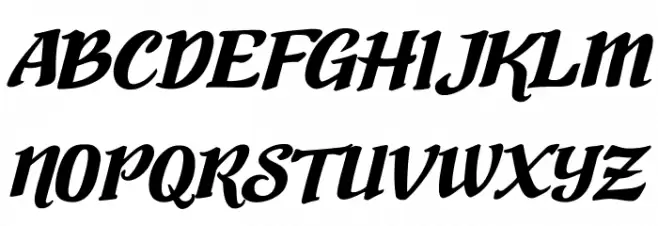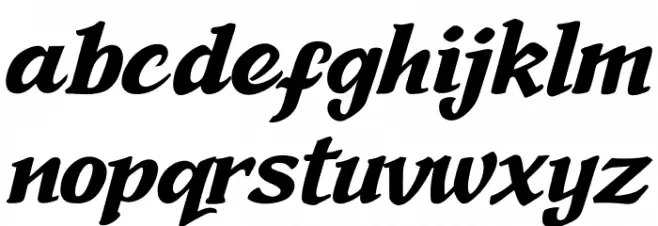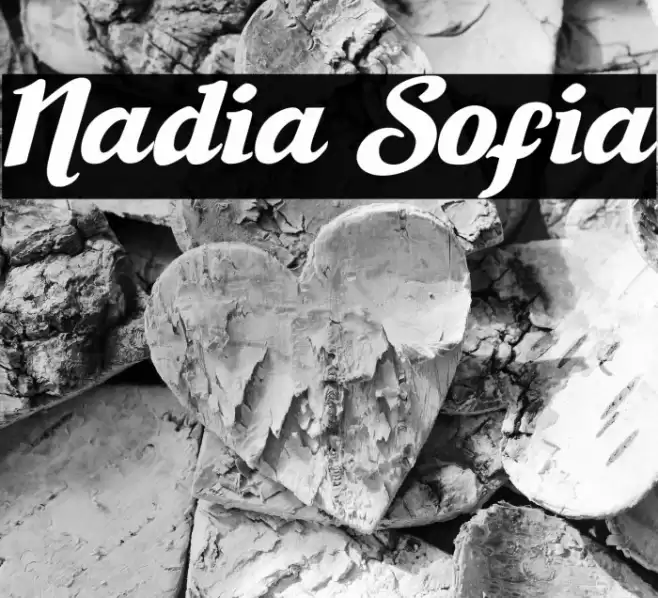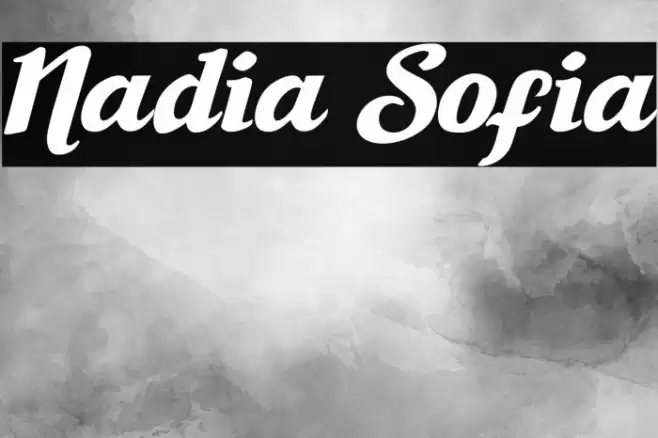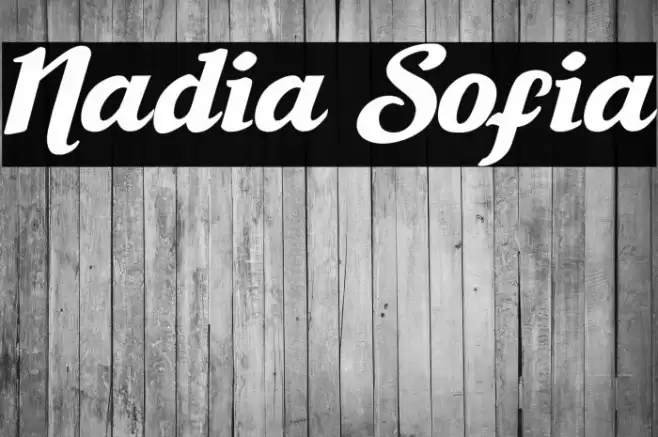
Nadia Sofia Font
Nadia Sofia Description
This font exhibits a bold and dynamic script style, characterized by its flowing, cursive letterforms that convey a sense of elegance and movement. The strokes are thick and consistent, with a slight slant that adds to its fluidity. The uppercase letters are particularly ornate, featuring exaggerated curves and flourishes, while the lowercase letters maintain a more restrained, yet still expressive, appearance. The overall design is reminiscent of traditional calligraphy, yet it maintains a modern edge that makes it versatile for various applications. The font's boldness ensures high readability, making it suitable for both display and decorative purposes.
A bold, dynamic script font with flowing, cursive letterforms and a modern calligraphic style.
- Proposed Projects: Ideal for wedding invitations, branding, logo design, and elegant packaging.
- Category: Script
- Use Case: Logos, Headlines, Decorative text